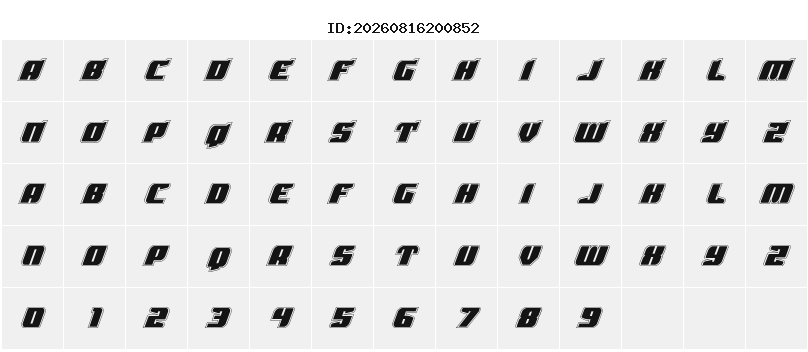
• Font Name: Spartaco Academy
About Spartaco Academy.ttf
Spartaco Academy.ttf is a modern, elegant sans-serif font designed for ultimate readability and visual harmony. Perfect for branding, headlines, web design, and print materials.